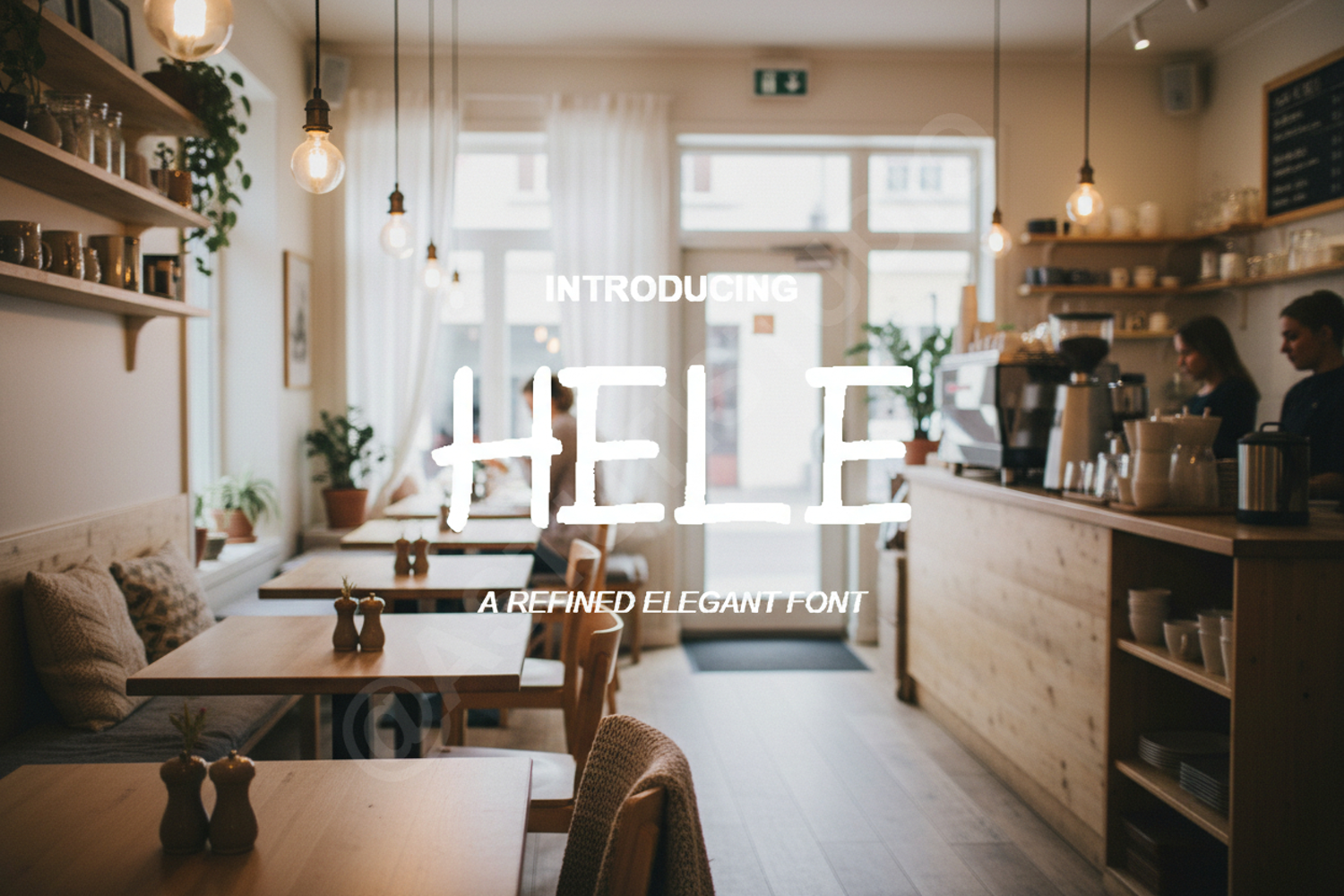
Hele - Elegant Modern Serif Font
Hele
Hele is a premium modern serif font that blends classic elegance with contemporary minimalism. Designed with precise attention to detail, Hele offers a sophisticated aesthetic that elevates any creative project. Its clean lines and balanced proportions make it a versatile choice for designers looking to add a touch of luxury and refinement to their work.
- Complete set of uppercase and lowercase characters
- Comprehensive numerals and punctuation
- Multilingual support for global design projects
- Branding and Identity: Create memorable logos and sophisticated brand marks.
- Editorial Design: Perfect for high-end magazine layouts and publishing.
- Wedding Stationery: Add a touch of class to invitations, menus, and place cards.
- Social Media: Design striking quotes and aesthetic content for your feed.
- Luxury Packaging: Ideal for lifestyle products and premium goods.